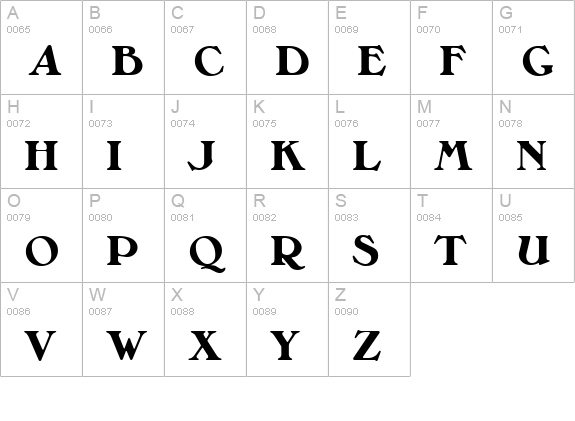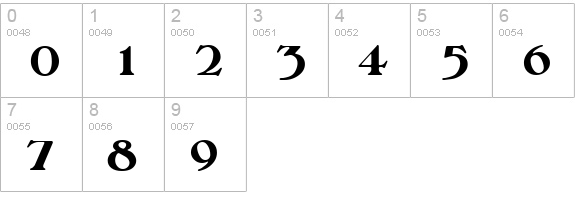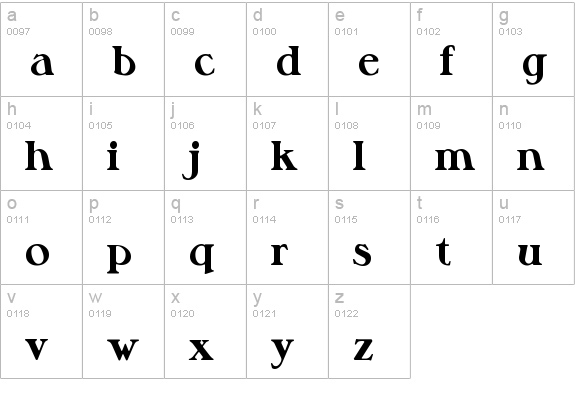
MelbourneSerial-Xbold-Regular is the standard, neutral variant in the MelbourneSerial typeface family \xE2\x80\x94 well suited to general body text, paragraphs, and standard typographic work.
MelbourneSerial-Xbold-Regular is a modern and sleek font that exudes sophistication and professionalism. With its bold and distinctive appearance, this font is perfect for creating eye-catching headlines, logos, and branding materials. The clean lines and sharp edges of MelbourneSerial-Xbold-Regular make it a versatile choice for both digital and print designs. And the best part? MelbourneSerial-Xbold-Regular is available for free download at FontsMarket.com. So whether you're a designer looking to add a fresh new font to your collection or a business owner in need of a stylish typeface for your marketing materials, MelbourneSerial-Xbold-Regular has you covered. Don't miss out on this amazing opportunity to elevate your designs with this stunning font. Download MelbourneSerial-Xbold-Regular today and let your creativity shine!